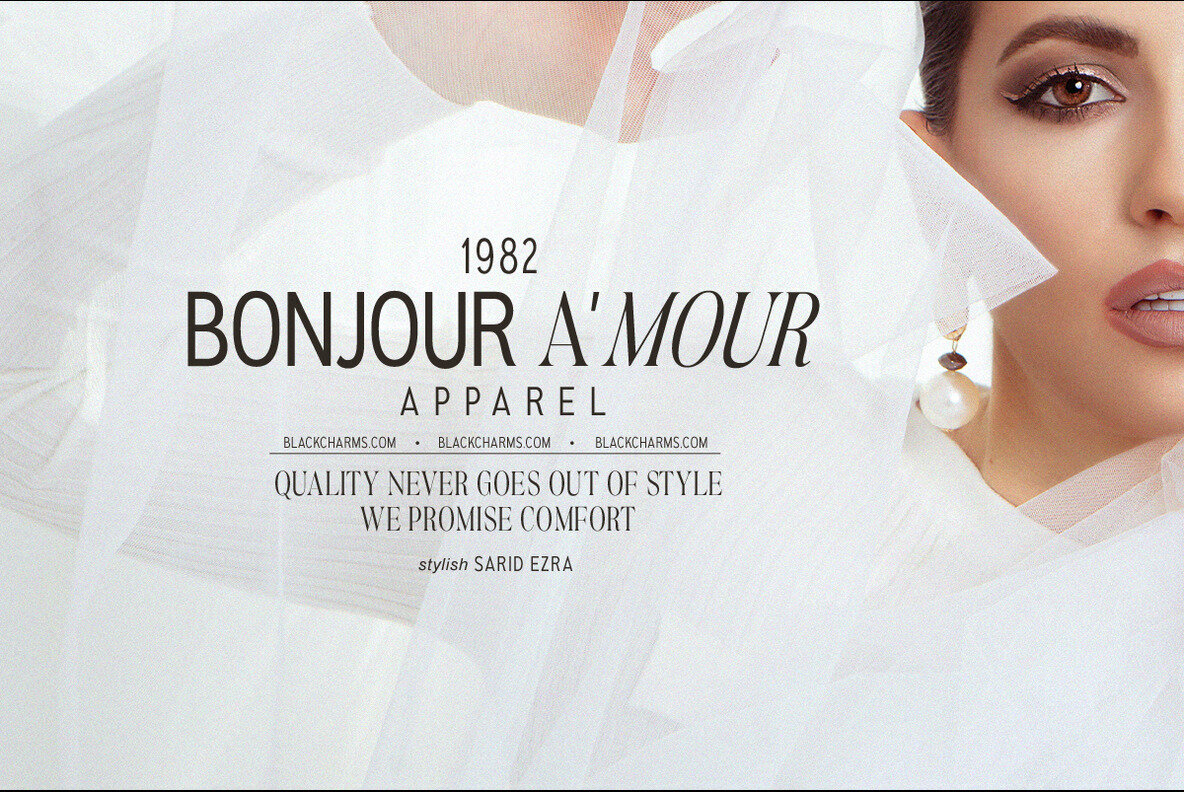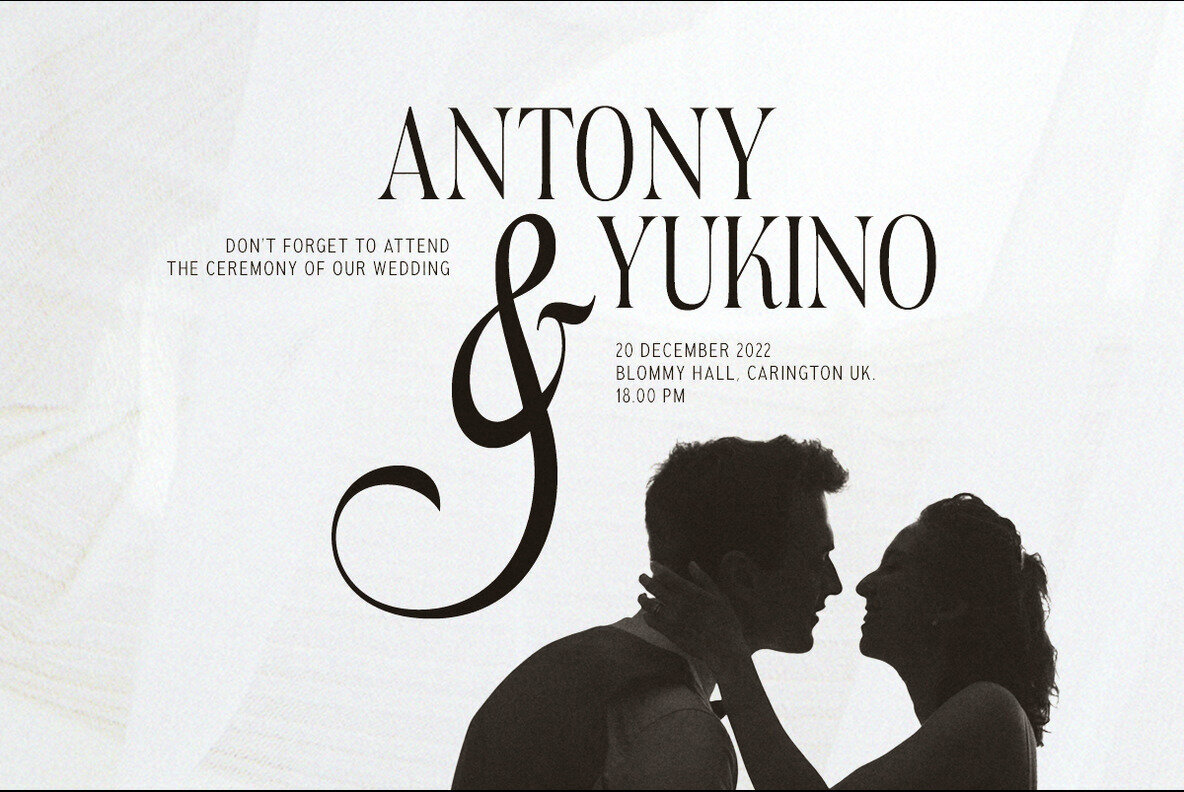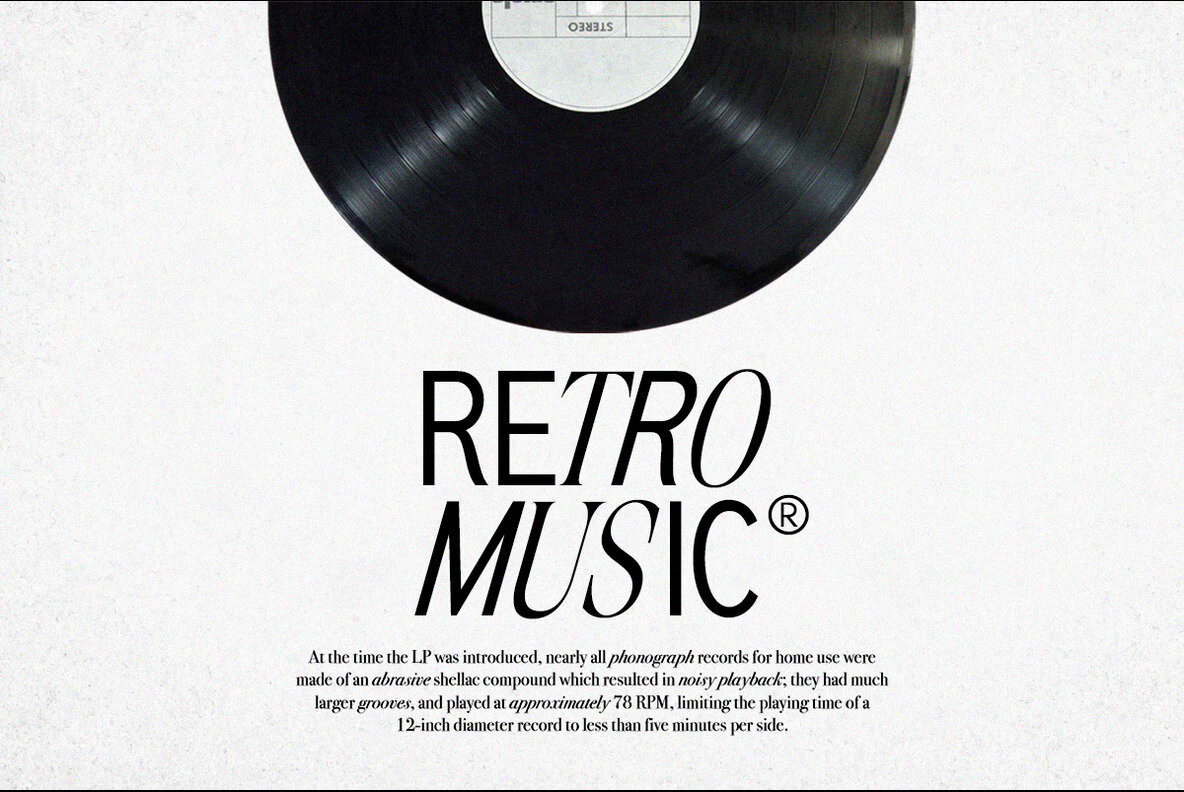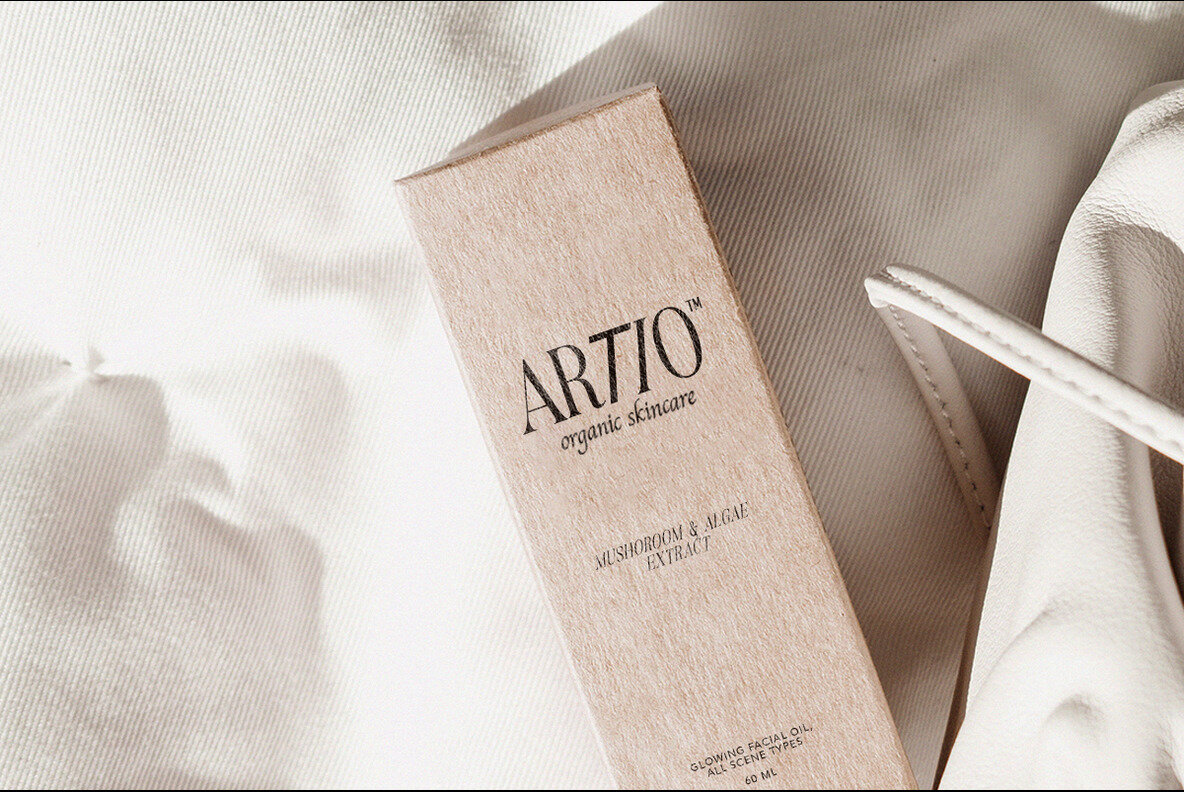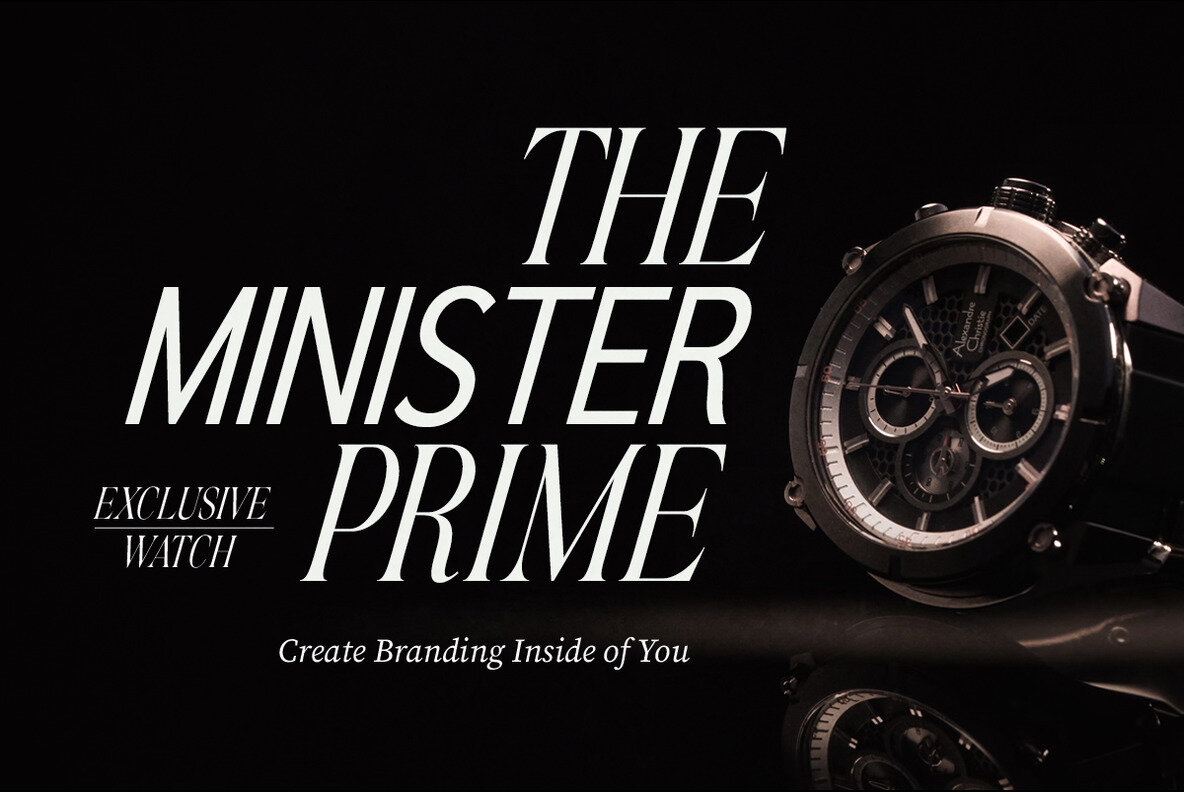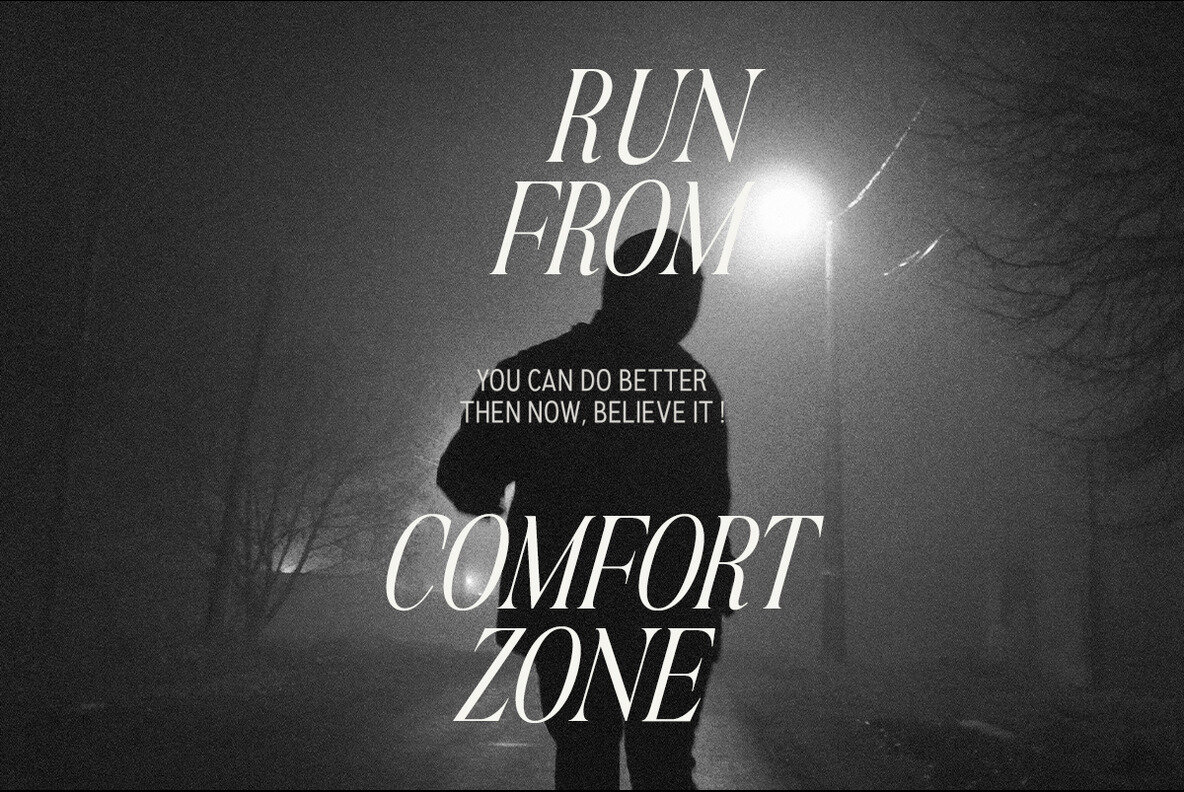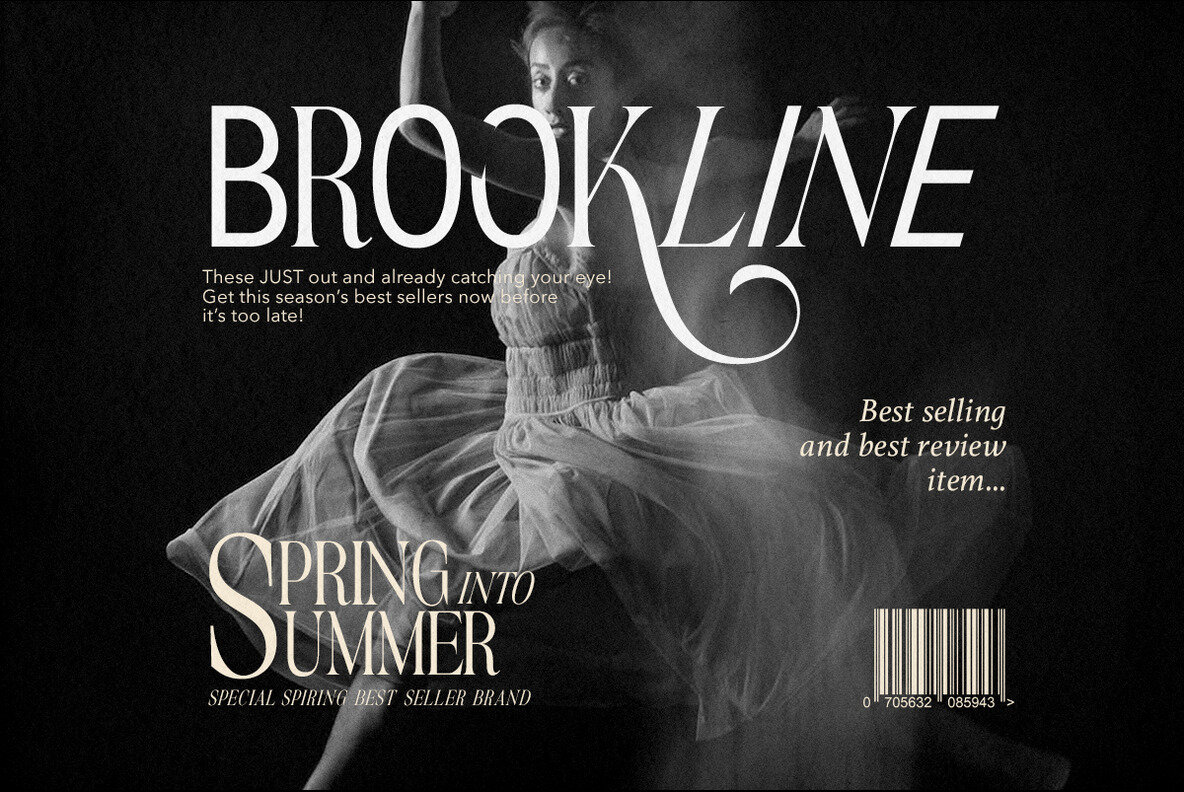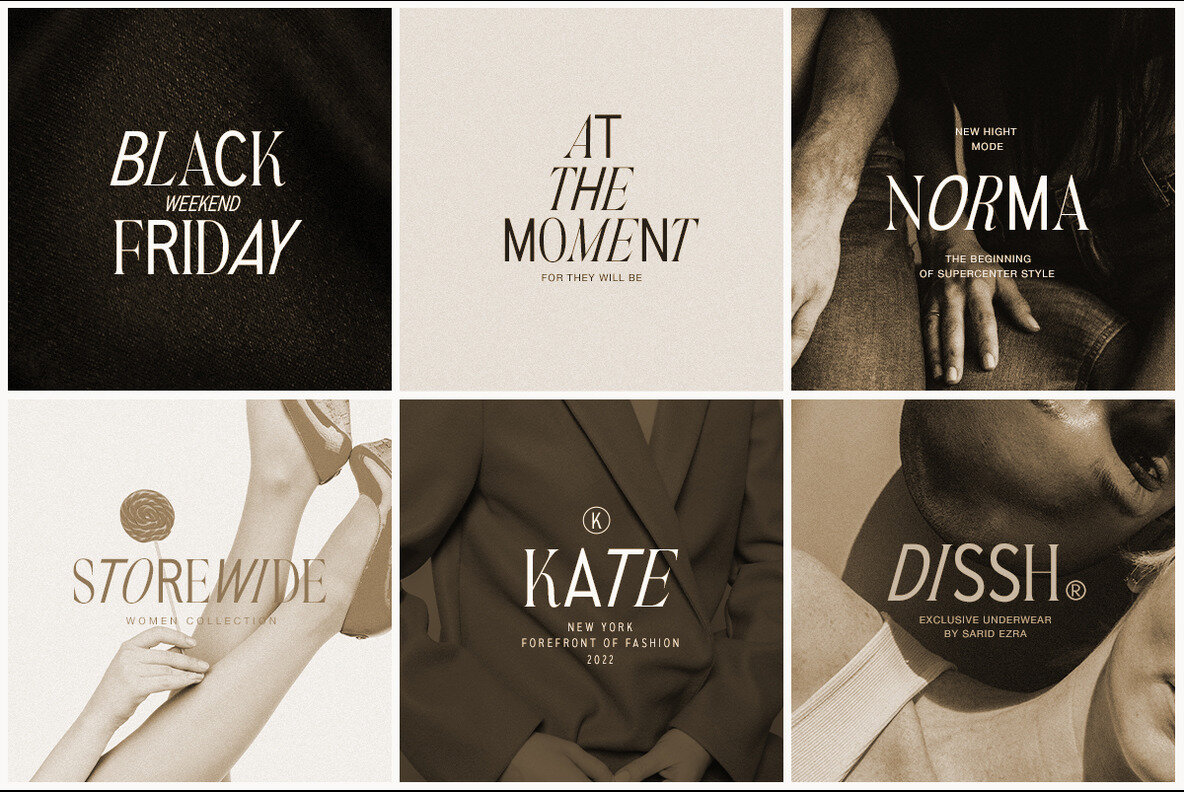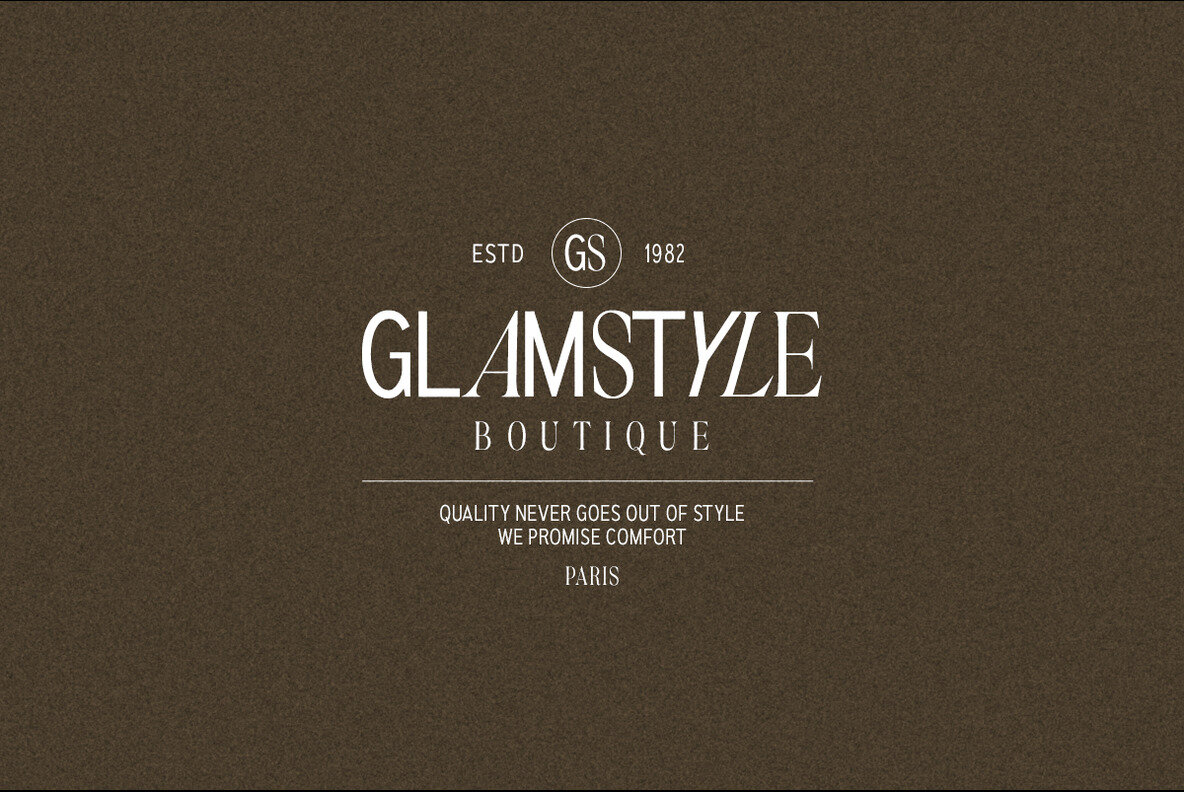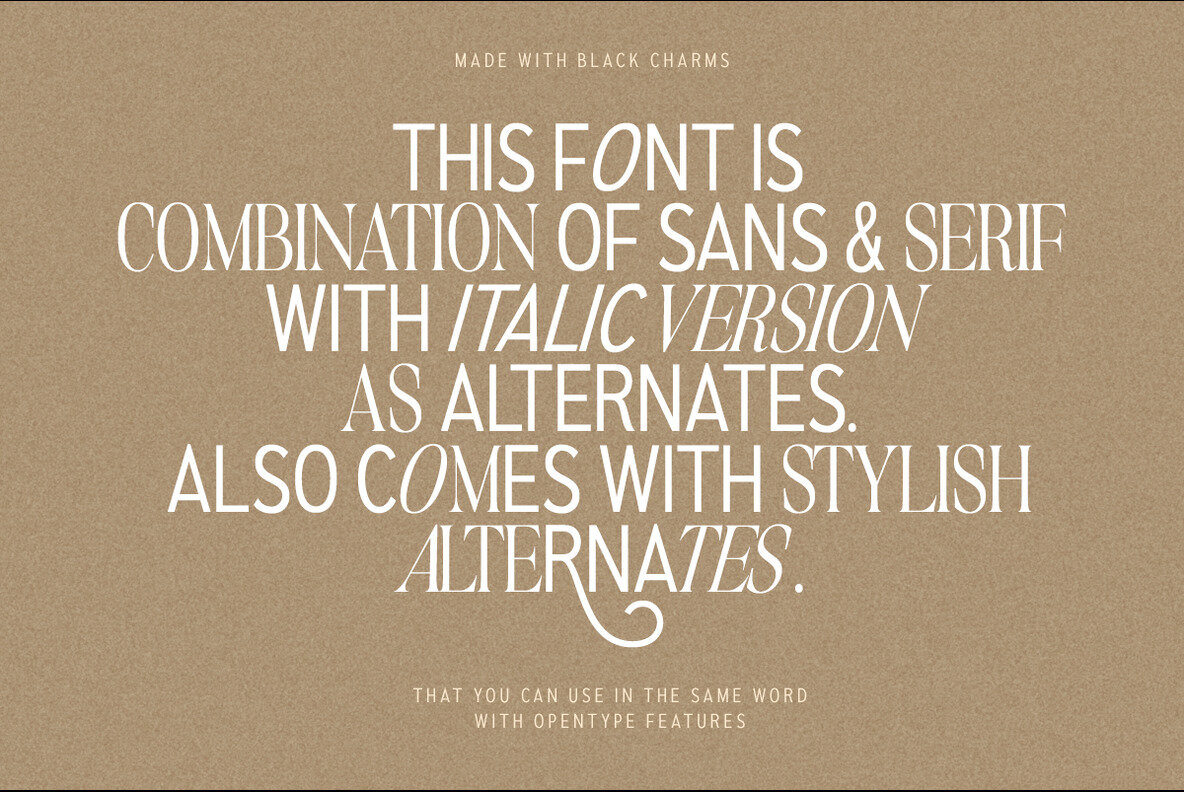
Black Charms Font
Black Charms Regular
Black Charms is a classy and fancy font that combine sans and serif in one font. With sans as uppercase dan serif as lowercase. You can use the lowercase and uppercase in the same word that will make your text more attractive! With the italic version as the alternates which mean you can combine it all without worrying about the kerning! You can use this font for the magazine, poster, and suitable for headline. This font also support multi language.